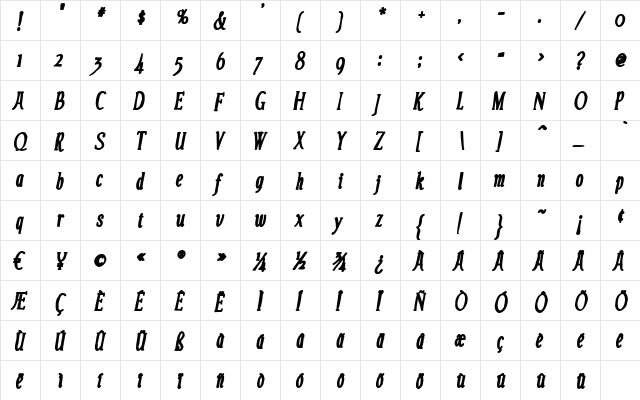
Echelon Ink Italic
| Designer | Ray Larabie ::: Larabie Fonts |
Design Context for Echelon Ink Typeface
Echelon Ink offers clean, dependable letterforms without strong stylistic allegiance, making it a practical choice for designers who need flexibility. The slanted form adds forward momentum and visual energy.
Pro Tip: Try Echelon Ink for annotation and caption copy alongside an upright companion — the contrast in angle creates a dynamic but ordered typographic system.